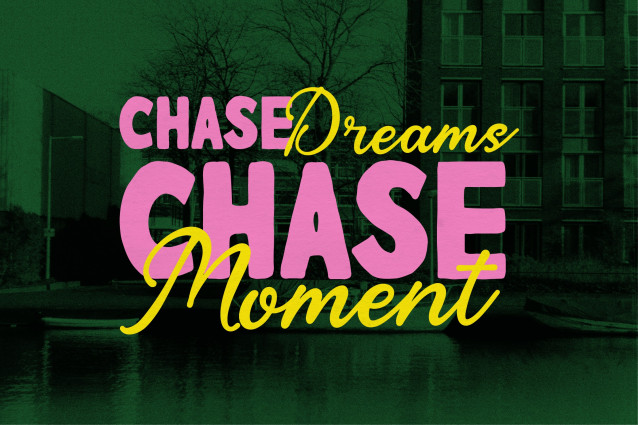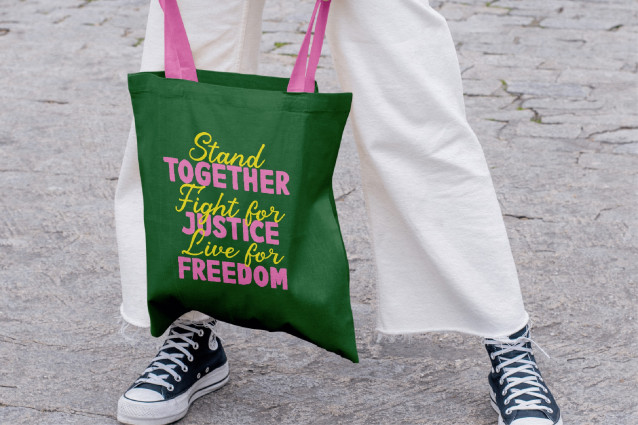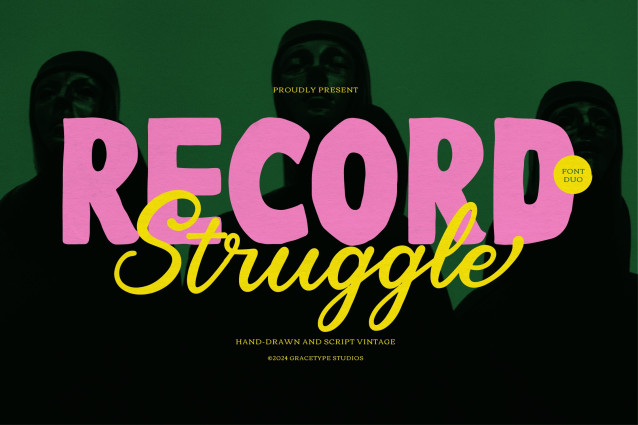
Record Struggle Font Duo
Record Struggle Font Duo | Hand Drawn Script Vintage, from Gracetypestudio, suitable for any projects such as: logos, branding projects, homeware designs, product packaging, mugs, quotes, posters, shopping bags, t-shirts, book covers, name card, invitation cards, greeting cards, label, photography, watermark, special events, and all your other lovely projects that need a Hand Drawn Script Vintage taste.